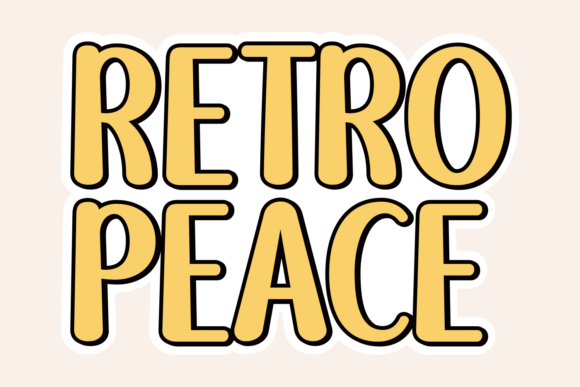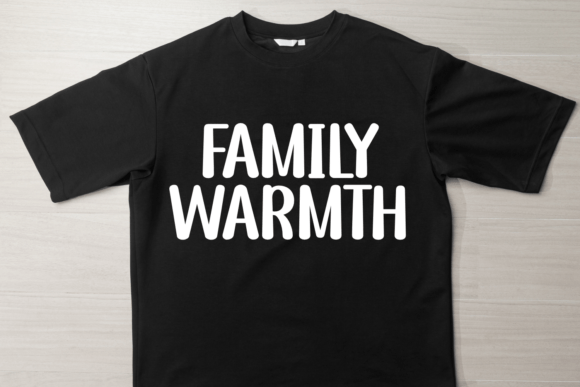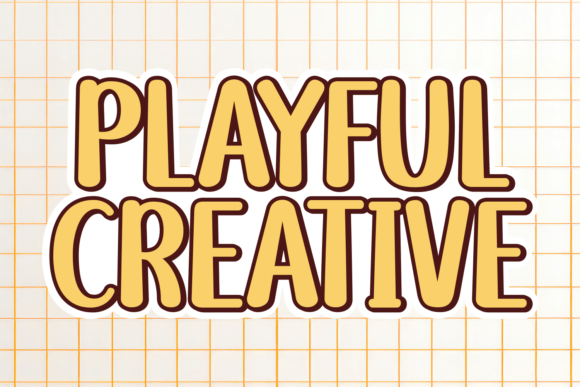
Introduction to Lemon Clams Font
Introducing Lemon Clams, a font that embodies charm and fun with a sweet, soft touch.
Perfect for those seeking to express emotion without uttering a word, the typeface introduces delightful elegance into every keystroke Whether you’re looking for a cute or lovely aesthetic, or a farmhouse rustic appeal, this font will not disappoint.
Key Features of Lemon Clams Font
Why Choose Lemon Clams Font?
Lemon Clams Font offers exceptional quality and versatility, making it a valuable addition to your design toolkit. Whether you’re creating for personal projects or commercial use, Lemon Clams Font delivers professional results.